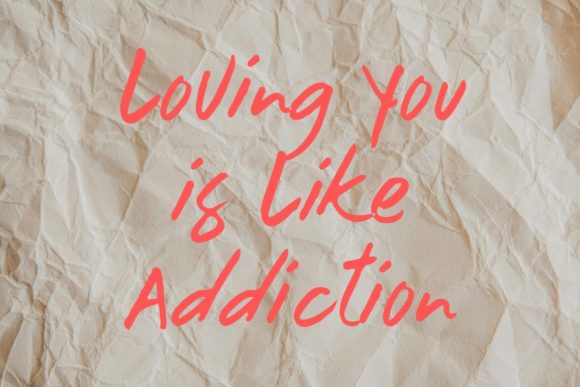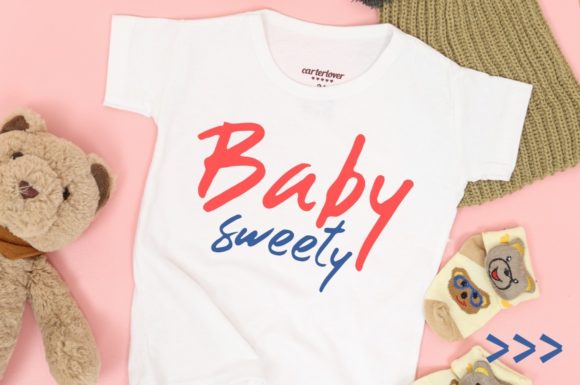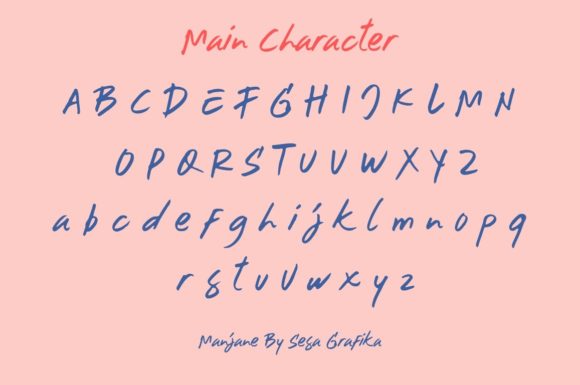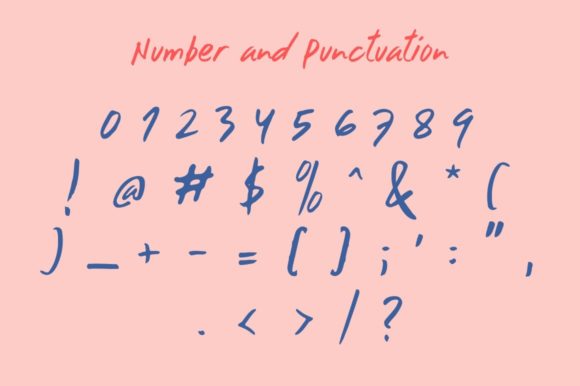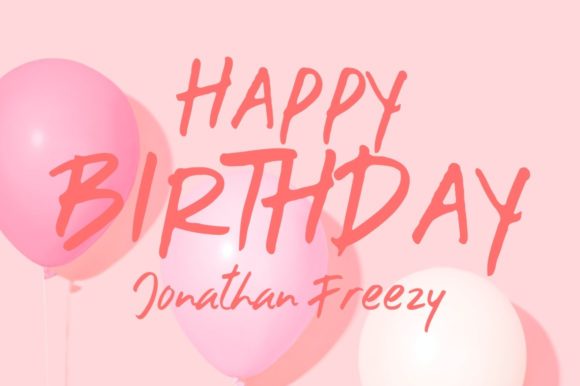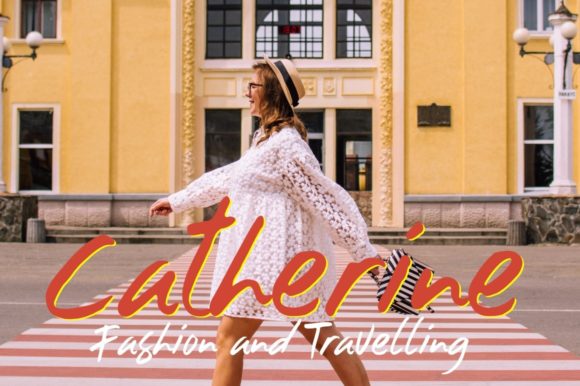
Introduction to Manjane Font
Have you ever stared at a blank canvas, struggling to bring your creative vision to life? It’s a moment we’ve all been there – when the blank page stares back, begging for inspiration. But what if the perfect spark was right at your fingertips? Enter the Manjane Font, a free download that will breathe new life into your design projects.
This expressive handwritten font is the ultimate design resource, offering a high quality, transparent background that seamlessly blends into any creative project. Whether you’re working on a personal passion project or a commercial campaign, Manjane Font has the potential to elevate your work and leave a lasting impression.
As a valuable addition to your font library, Manjane Font is an essential tool for designers looking to add a touch of personality to their designs. Its versatility and unique charm make it a must-have for anyone seeking to create something truly special.
Key Features of Manjane Font
- High-quality design: Manjane Font is a beautifully crafted typeface ideal for creative projects that demand a sophisticated look.
- Transparent background: Manjane Font features a transparent background, allowing for seamless integration with various design elements.
- Resolution: The font is designed to render crisply at high resolutions, making it perfect for print and digital projects.
- Unique characteristics: Manjane Font boasts a unique blend of modern and traditional design elements, setting it apart from other typefaces.
- Size: The font includes a range of weights and styles, from light to bold, allowing designers to customize their projects to suit their needs.
Honest Review: Manjane Font
I recently stumbled upon the Manjane Font, a free design resource that’s been gaining popularity among creatives. After giving it a try, I’m excited to share my honest review.
What works well: ✨ The Manjane Font is a high-quality, elegant script font that’s perfect for creative projects. It’s great for adding a touch of sophistication to your designs, from invitations to marketing materials. I also appreciate the transparent background option, which makes it easy to use with any background image or color.
Here are some of its key features:
- High-quality design: The Manjane Font is well-crafted and looks great on both digital and print materials.
- Transparency: The transparent background option makes it easy to use the font with any background image or color.
Limitations: ⚠️ While the Manjane Font is a great addition to any designer’s toolkit, it may not be suitable for all types of projects. For example, it’s not ideal for body text or large blocks of text, as it can be difficult to read.
Overall, I’m impressed with the Manjane Font and would recommend it to designers looking for a high-quality, elegant script font. It’s a great free download that’s perfect for creative projects and design resources.
Tips for Getting the Most Out of Manjane Font
Some tips for getting the most out of the Manjane Font include: using it in combination with other design elements, experimenting with different font sizes and styles, and using it to create a unique and creative look for your project.
The Manjane Font is commonly used in a variety of design projects, including: logo design, branding, and marketing materials. It’s also great for creating a high-quality and creative project with a transparent background.